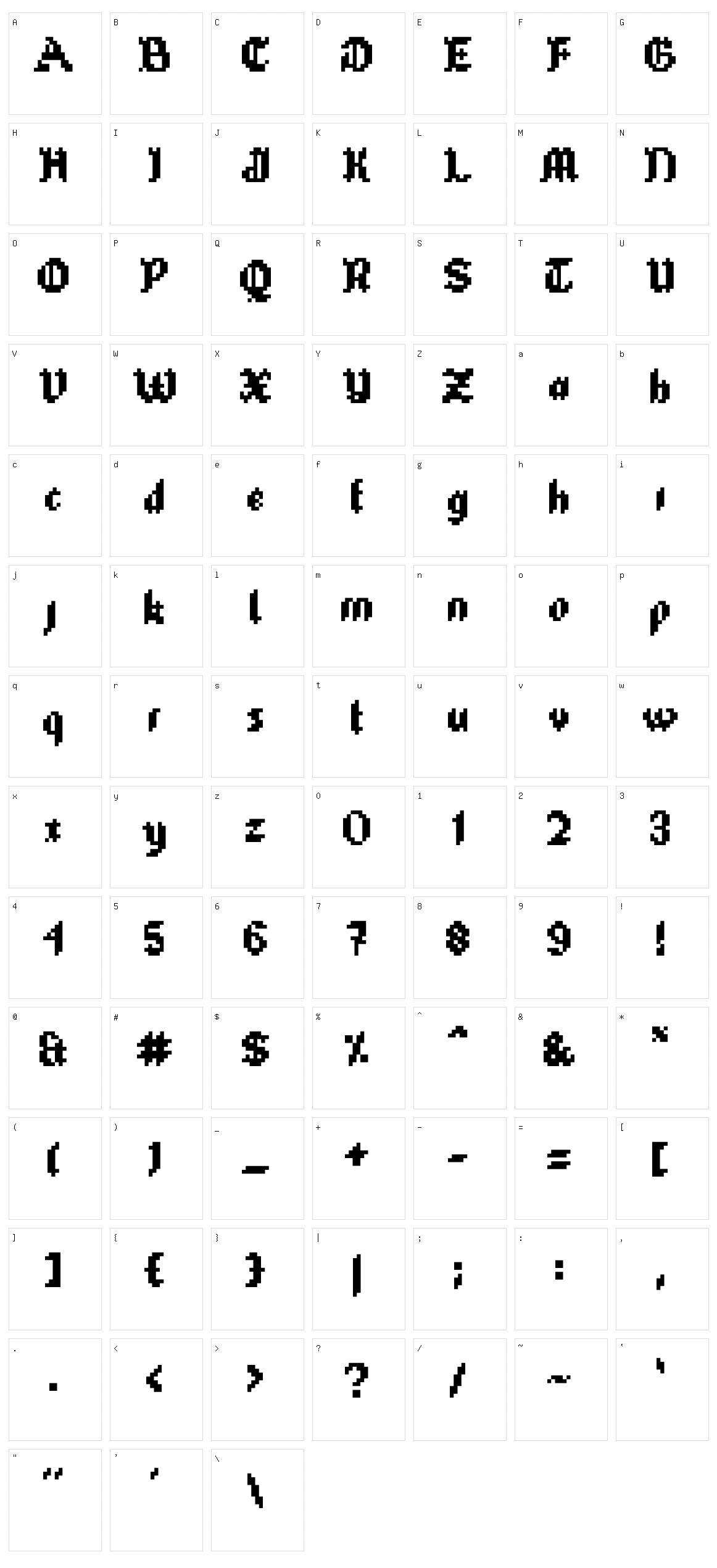
The free font Tube Of Corn is carefully designed by Hazel Abbiati, showcasing a thoughtful balance of creativity and usability and belongs to the Bitmap font family. When you download the ZIP file, it contains only 7.65 KB of font files, making it lightweight and quick to download. Please review the license details below to understand permitted usage and distribution rights. If license information is not available, we recommend using this font for personal projects only or contacting the author directly for commercial usage permissions.